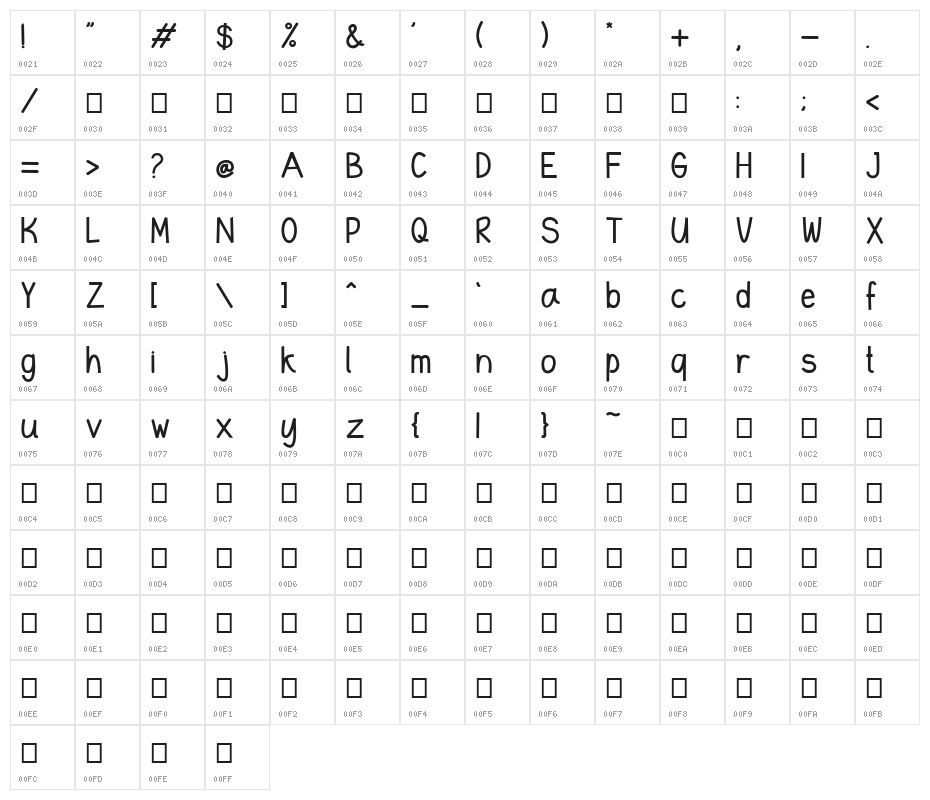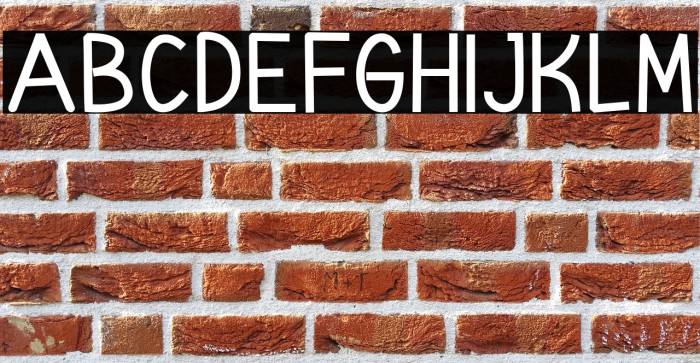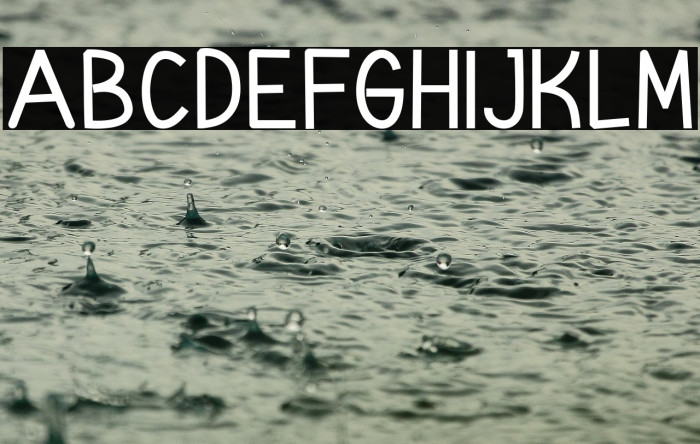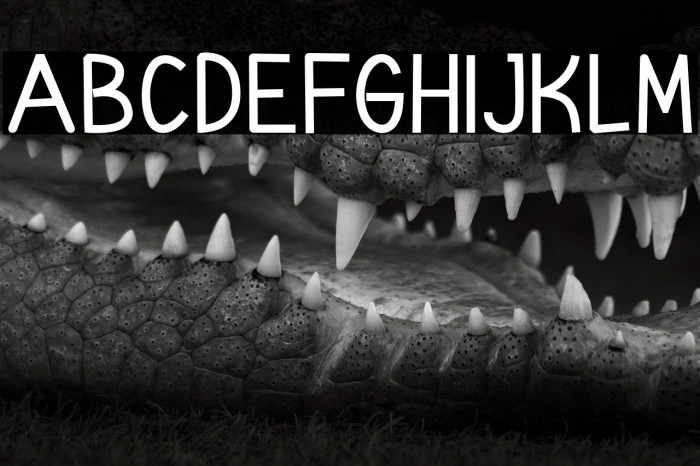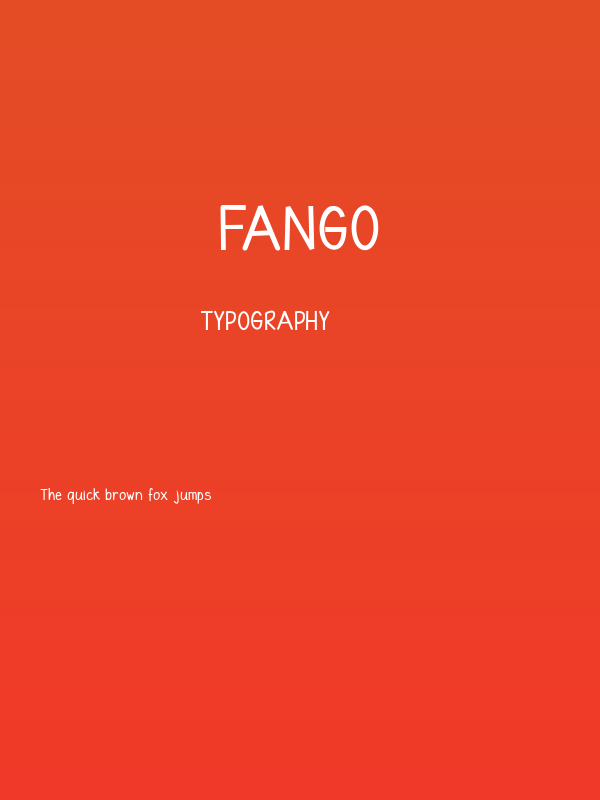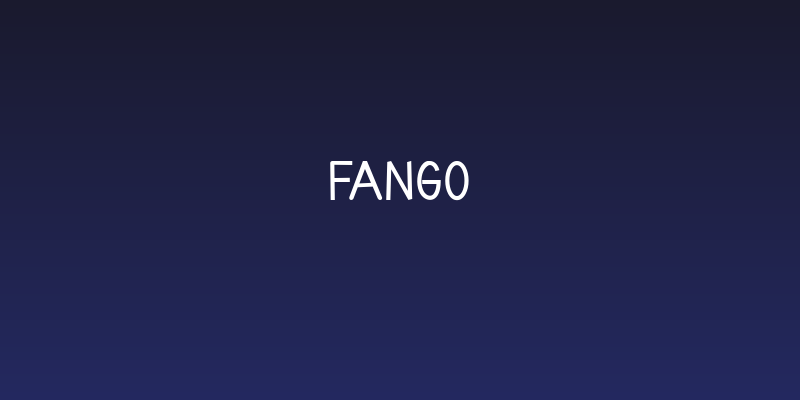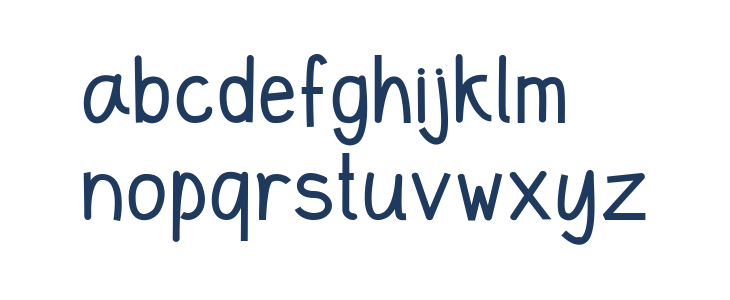
Fango Font
Fango Description
This font features a playful and informal style, characterized by its handwritten appearance. The letters are slightly irregular, giving it a casual and friendly feel. The uppercase and lowercase letters maintain a consistent height, with rounded edges and a slight tilt that adds to its whimsical nature. The numerals and special characters follow the same playful design, making it suitable for projects that require a touch of personality and warmth.
Overall StyleCasual
Use CaseHeadlines, Informal text, Branding
Proposed ProjectsIdeal for children's books, greeting cards, casual invitations, and playful branding.